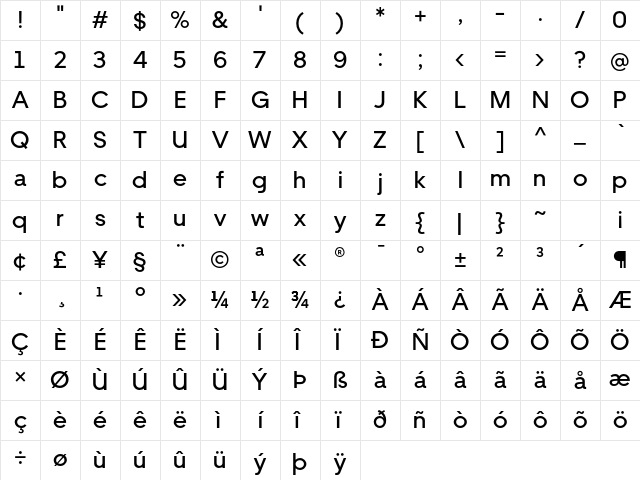
Uber Move Medium Regular Free Font
Uber Move Medium Regular
Foundry: MCKL
Designer: Jeremy Mickel / MCKL
Design Context for Uber Move Medium
Uber Move Medium is a composed and adaptable typeface that performs quietly and consistently across a wide range of design contexts.